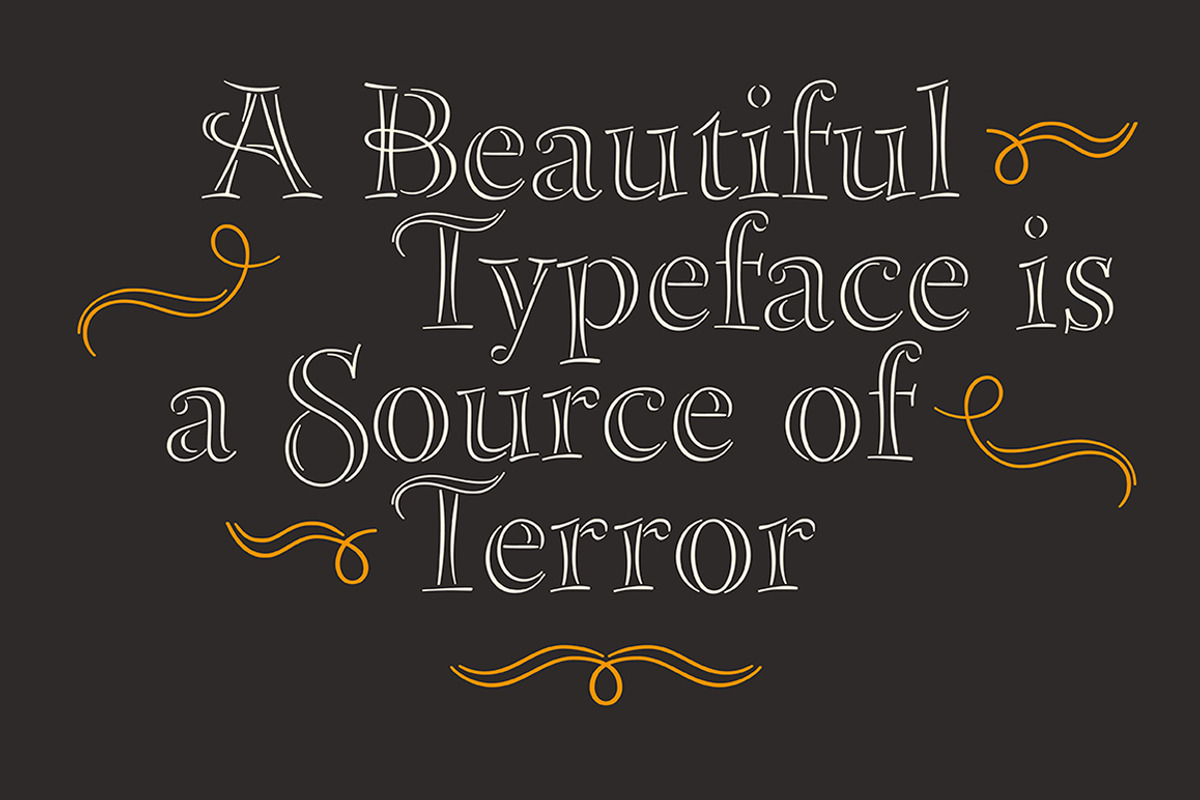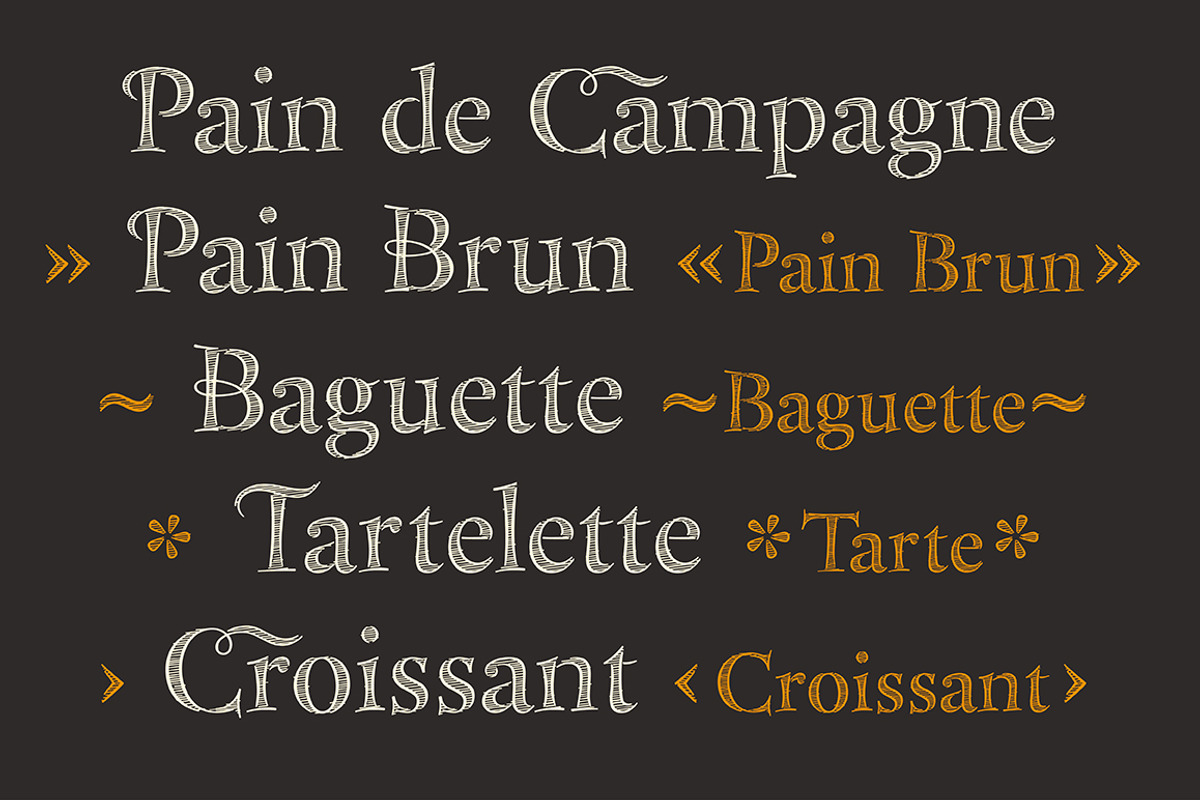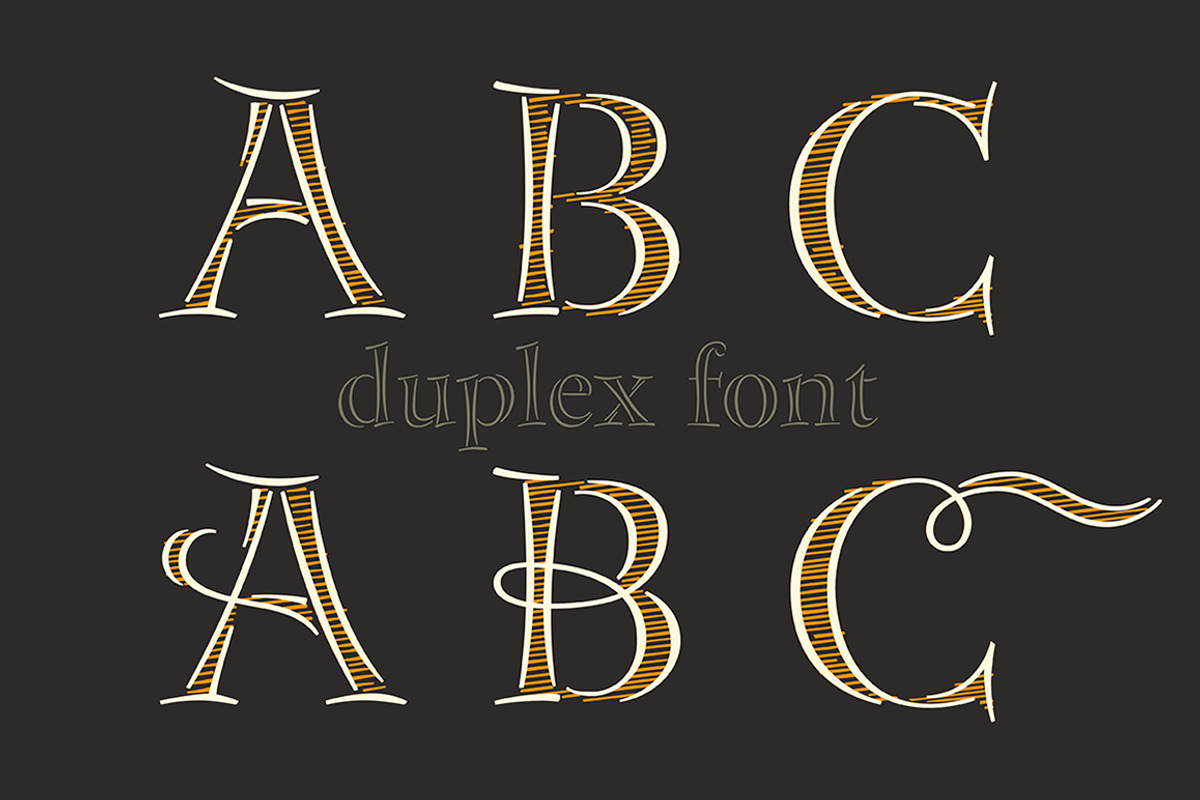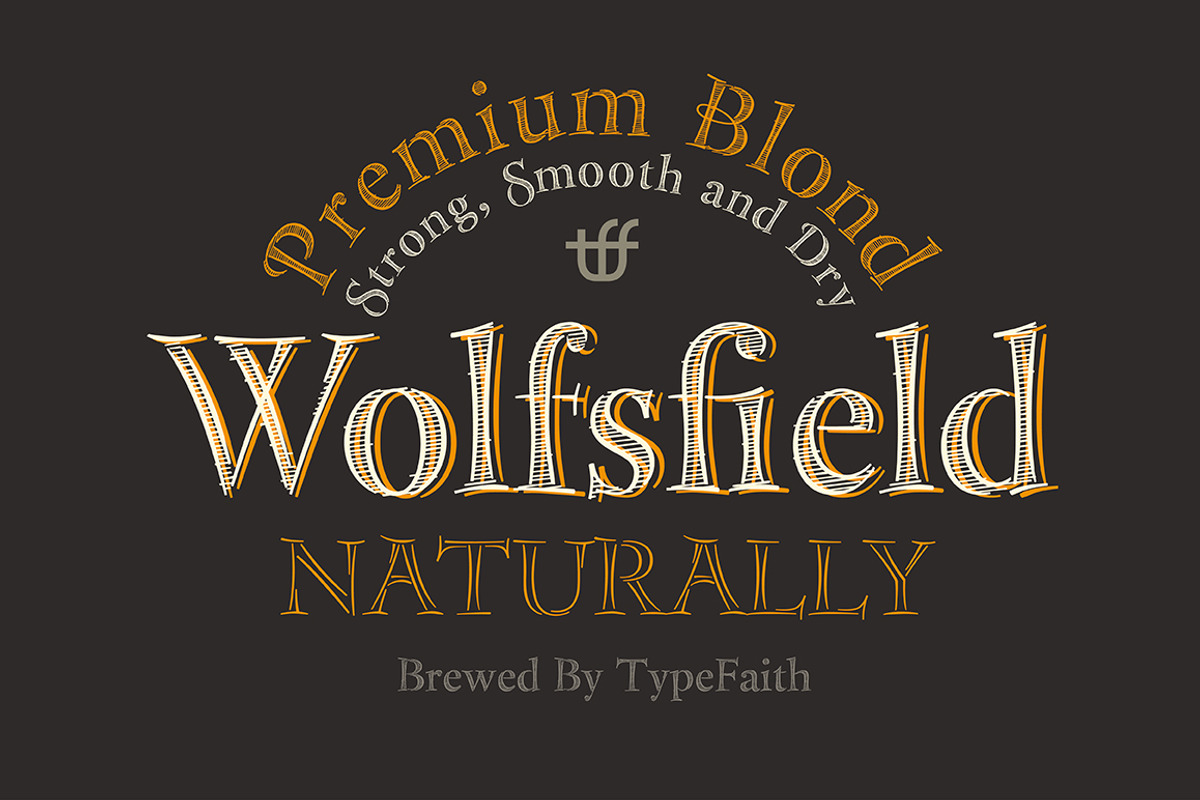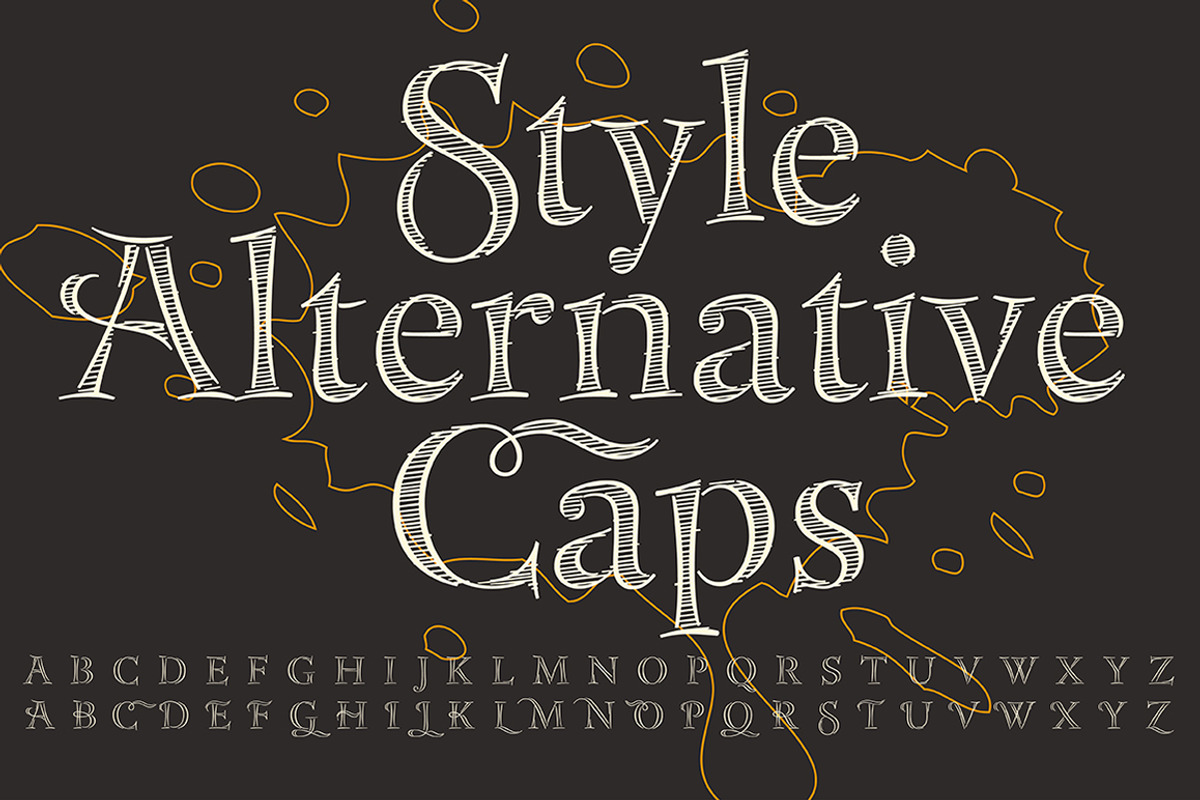
Bakersville
Bakersville by TypeFaith Fonts is a font selected for branding, posters, packaging, typography.
- Bakersville is a package of 2 hand drawn sketch fonts by TypeFaith Fonts.
- Bakersville Full
- Bakersville Line
Why Bakersville is worth a look
Bakersville by TypeFaith Fonts fits naturally into Branding, posters, packaging, typography.